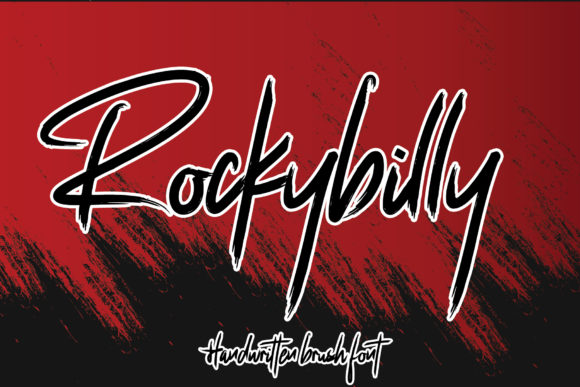
Welcome to the world of Rockybilly, a super handwritten brush font that's sure to ignite your creativity. Designed by the talented thomasaradea, this script font family is bursting with energy and modern charm, ready to elevate your designs from ordinary to extraordinary.
Immerse yourself in the sweeping strokes and playful curves of Rockybilly. Each letter dances across the page with a raw, authentic feel that adds a touch of personality and uniqueness to your creations. Whether you're working on branding materials, social media posts, or eye-catching headlines, Rockybilly is your ultimate companion.
With Rockybilly, you can effortlessly transform your words into powerful visuals that grab attention and leave a lasting impression on your audience. Harness the boundless creativity of this font to craft designs that stand out from the crowd and showcase your individuality.